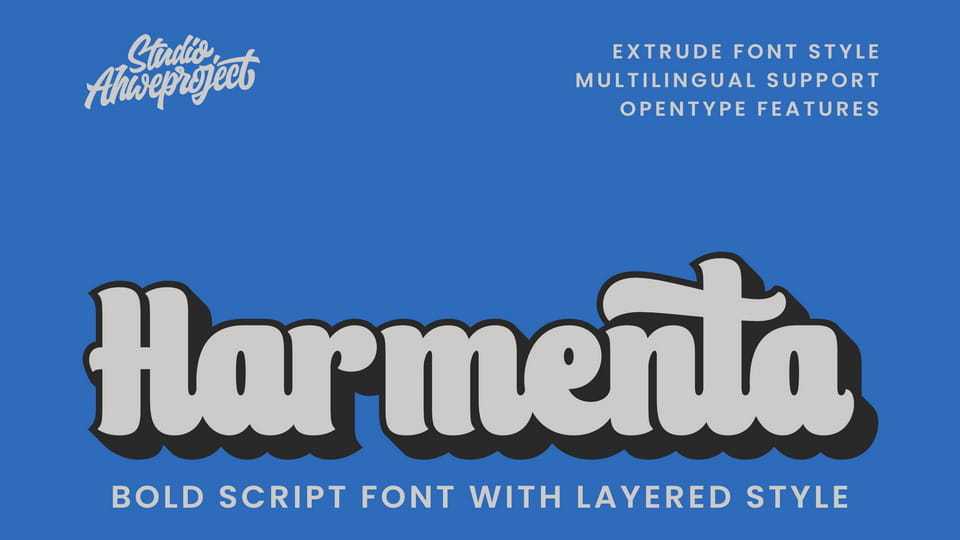
Download Harmenta font, a bold script typeface with a layered style that’s made to stand out! Harmenta features thick, smooth letterforms with a touch of modern retro.